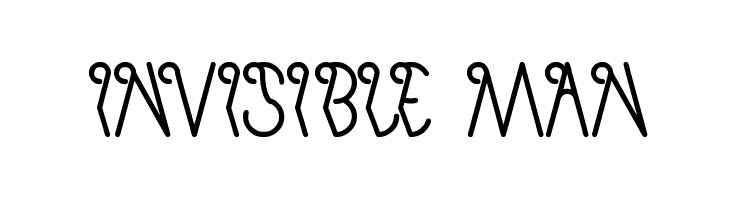
A playful, bold, and whimsical font with looped and curved elements.
A playful handwritten font with tall, narrow characters and consistent stroke width.